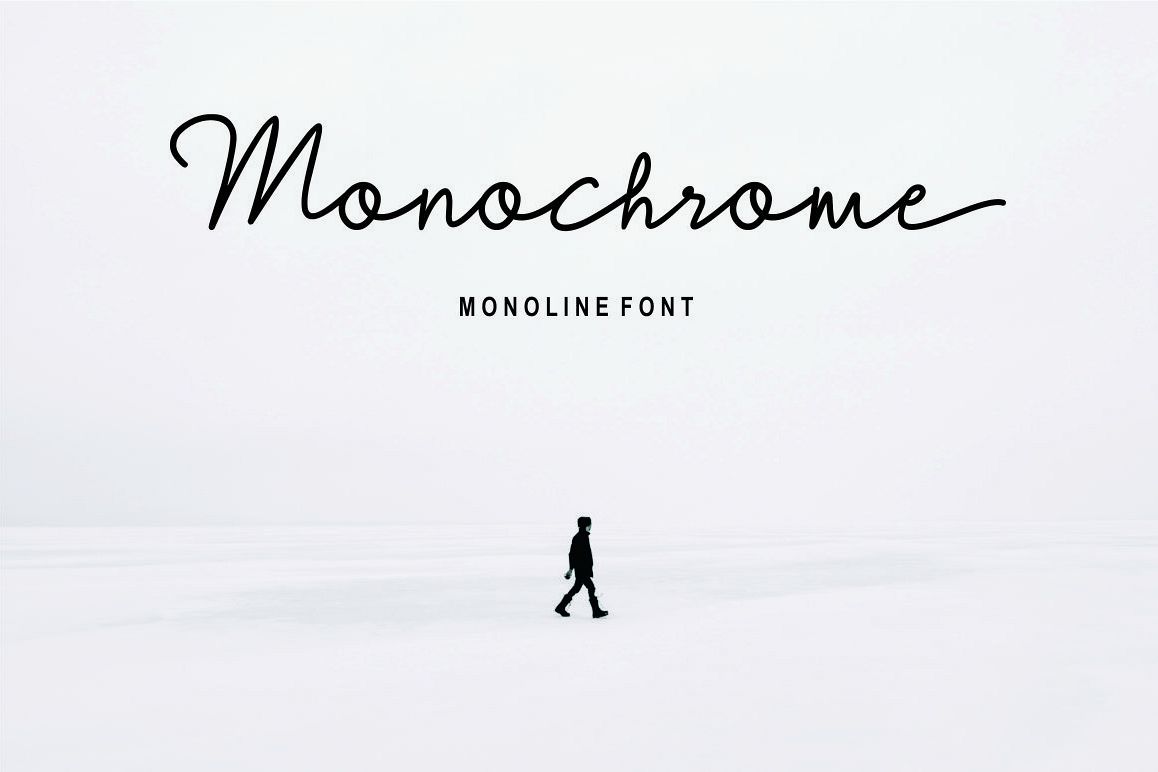
Monochrome
Introducing newest font , just now launch,this is Monochrome.
The Monochrome is a modern monoline font. It contains beautiful letters with swashes which will give your design a feminine, handwritten look.
Very very suitable for your logo,watermark,web,signature,quote,poster,business card,magazine and many more!